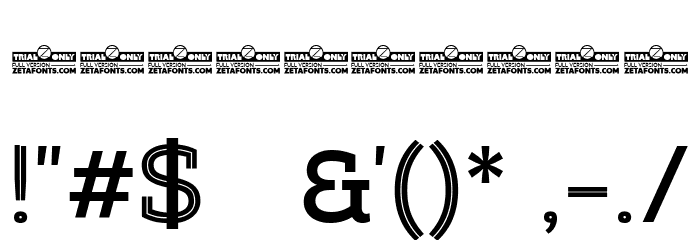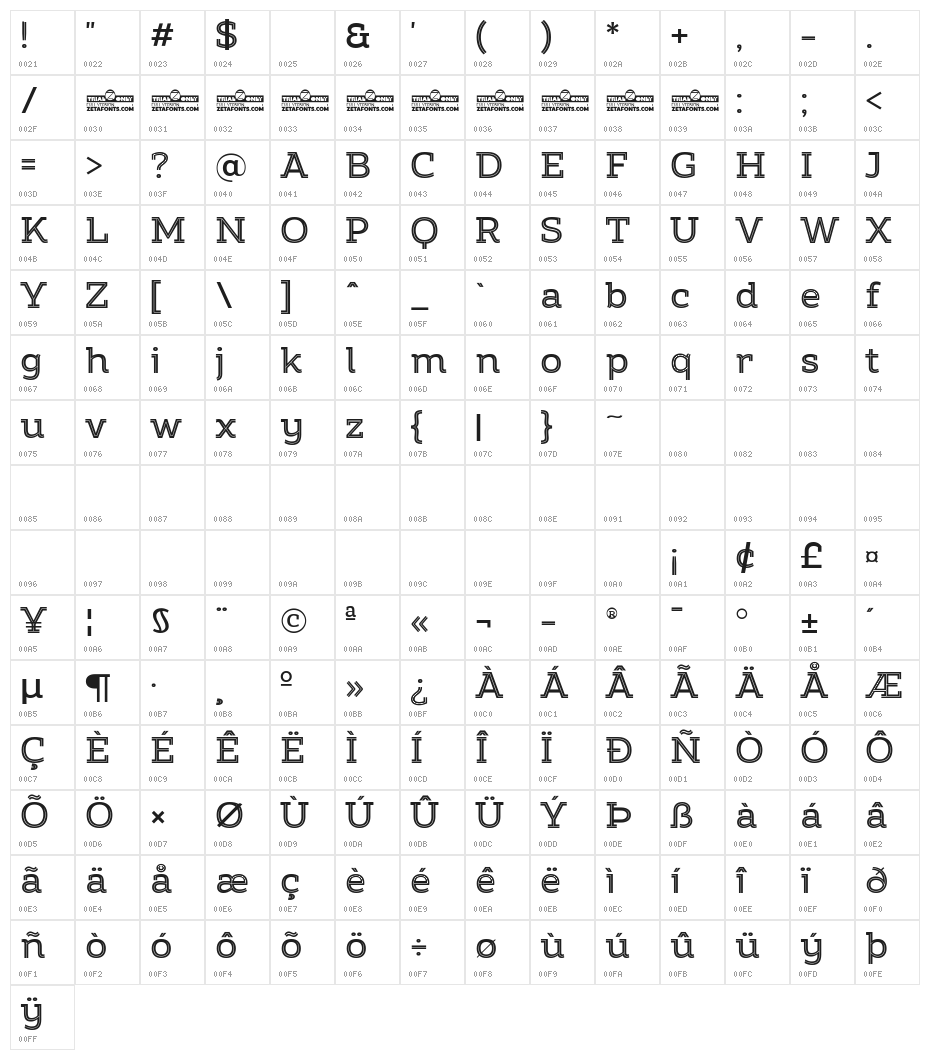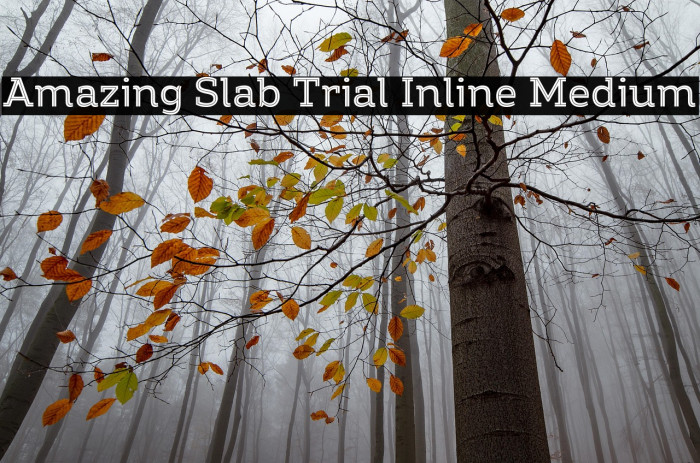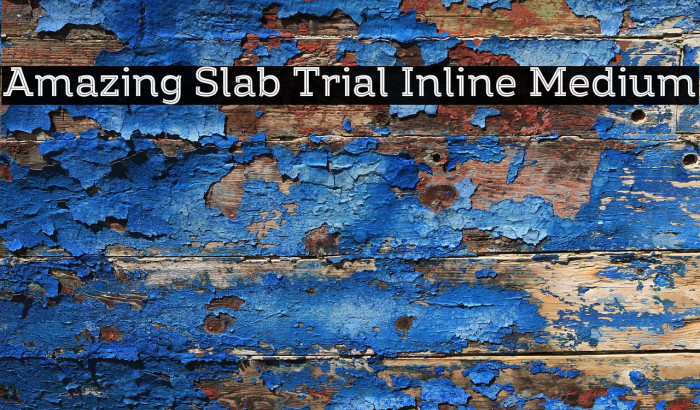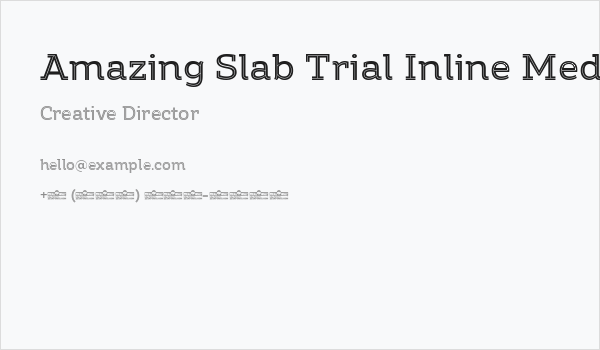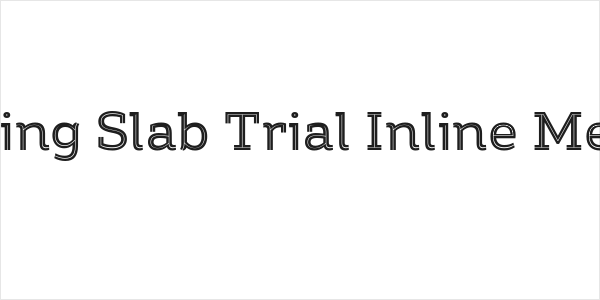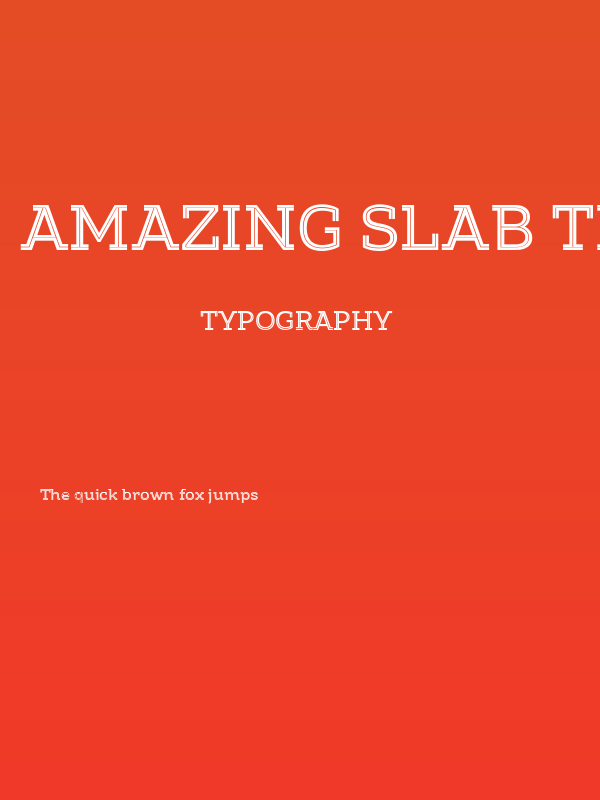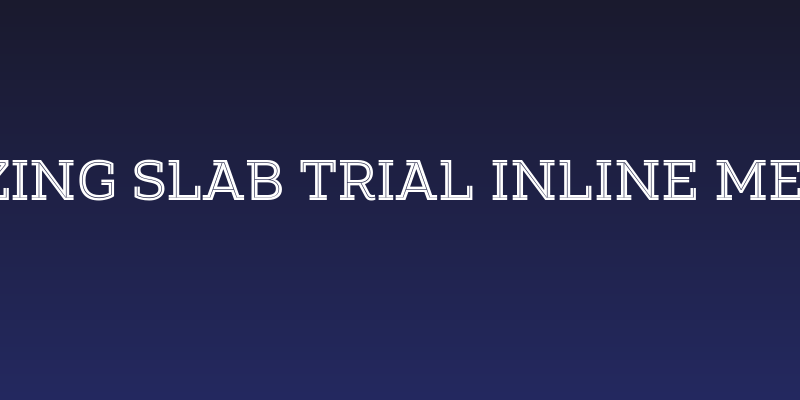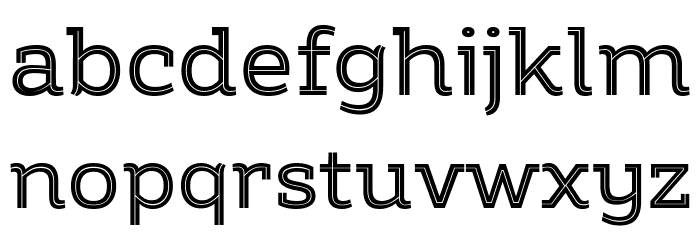
Amazing Slab Trial Inline Medium Font
Amazing Slab Trial Inline Medium Description
This font features a distinctive inline style that adds a unique flair to its slab serif design. The characters are bold and structured, with a strong presence that makes them stand out. The inline detail provides an elegant touch, adding depth and interest to the overall appearance. The uppercase and lowercase letters are well-proportioned, maintaining a consistent aesthetic throughout. The numerals and special characters are designed to complement the alphabet, ensuring a cohesive look. This font is versatile, suitable for a variety of design projects that require a bold yet sophisticated typeface.
| Proposed Projects | Ideal for branding, headlines, posters, and editorial design. |